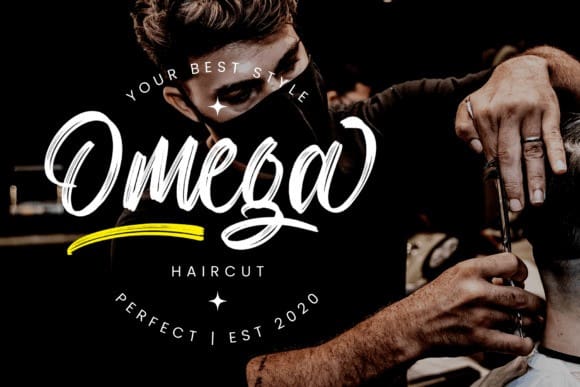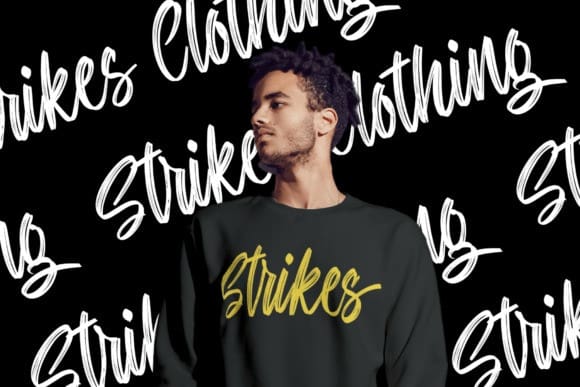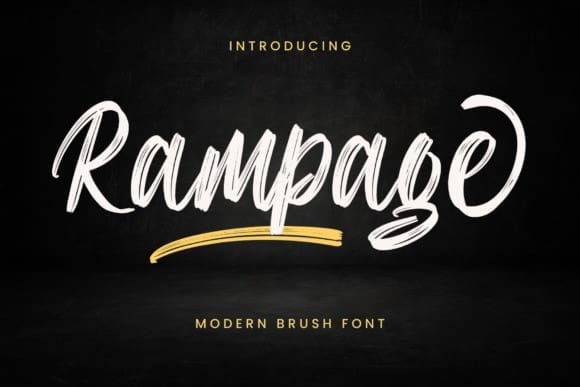
Rampage Script Font
Rampage Script Font is a strong and detailed handwritten brush font. This gentle font will look gorgeous on a variety of design ideas. It will add a cool and professional touch to each of your projects!